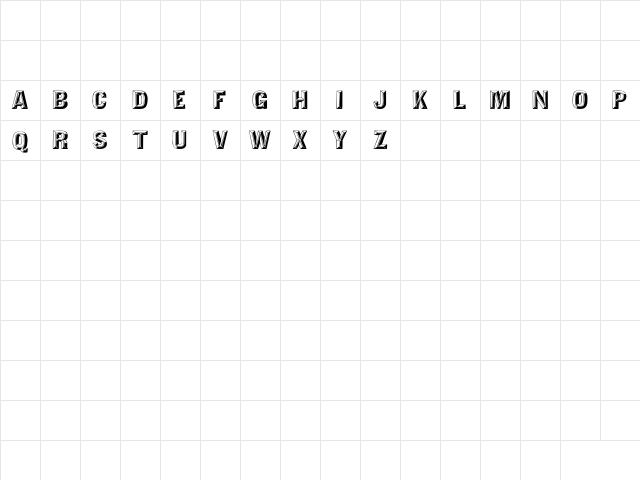
Tejaratchi Wd Regular Free Font
Tejaratchi Wd Regular
Design Context for Tejaratchi Wd
Tejaratchi Wd is a composed and adaptable typeface that performs quietly and consistently across a wide range of design contexts.